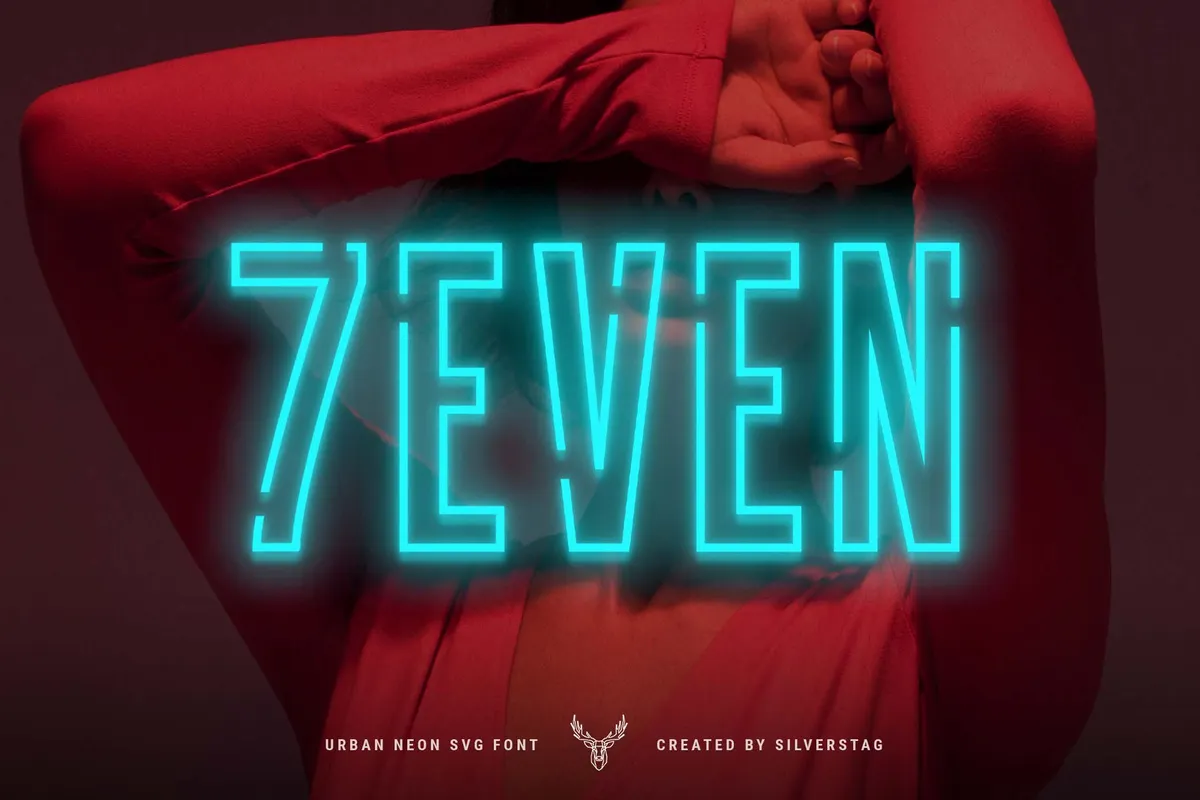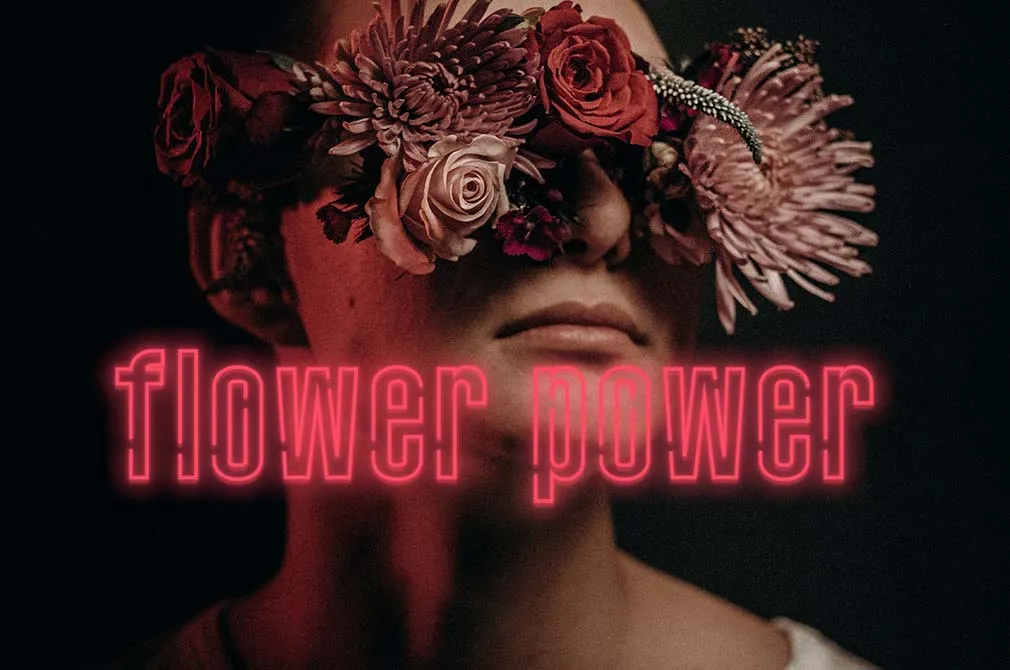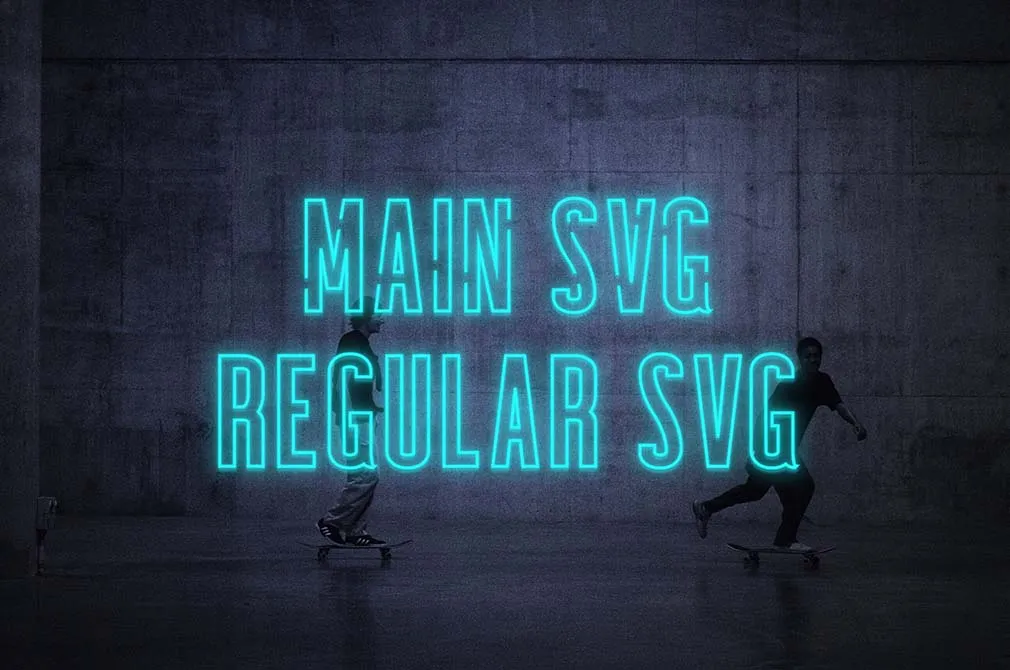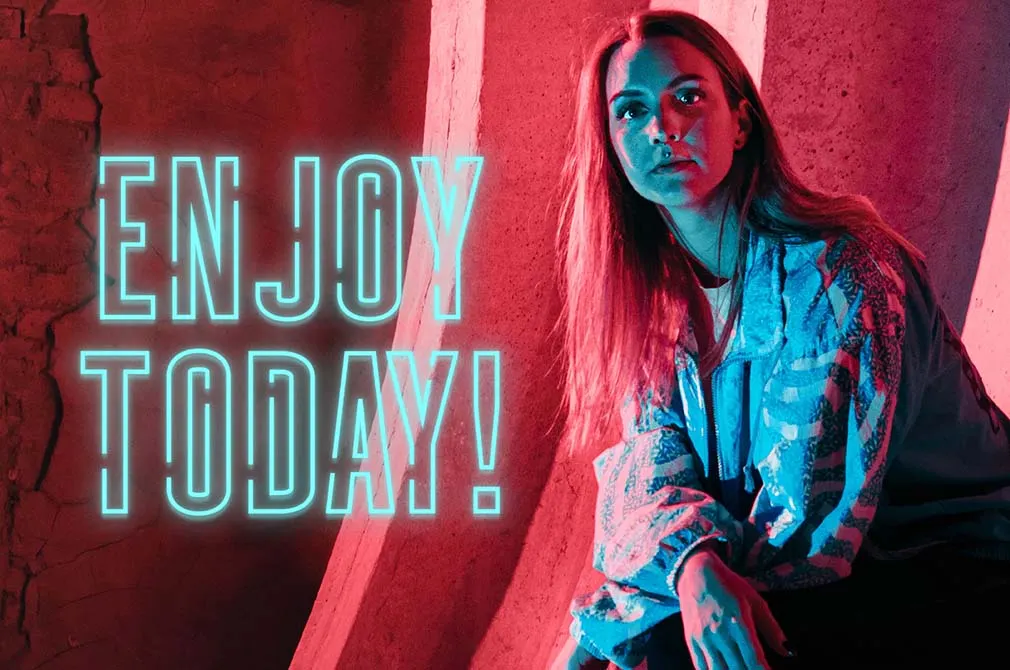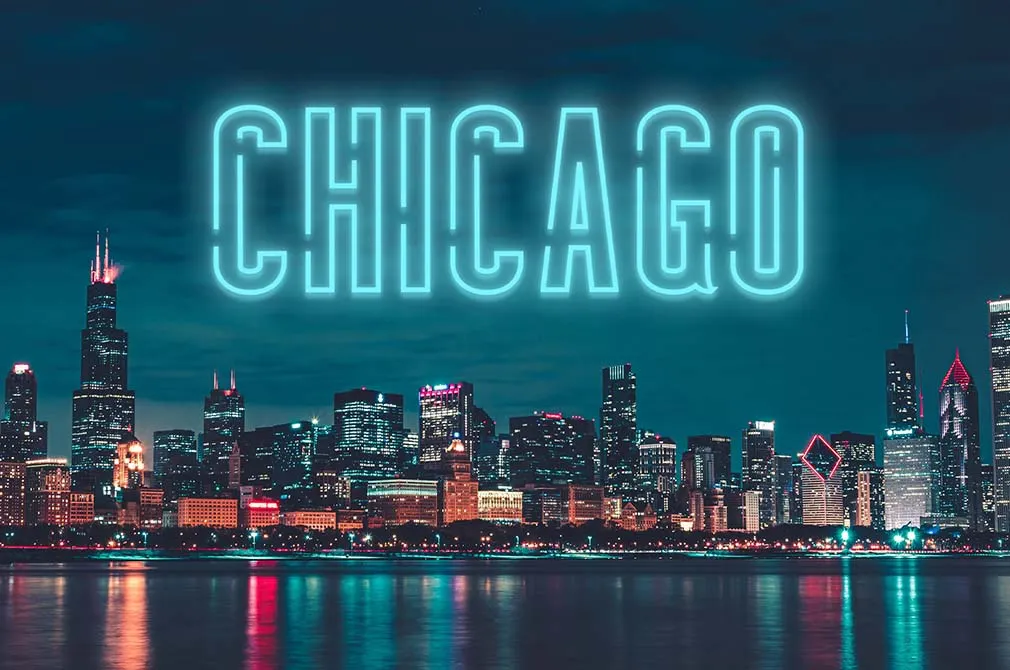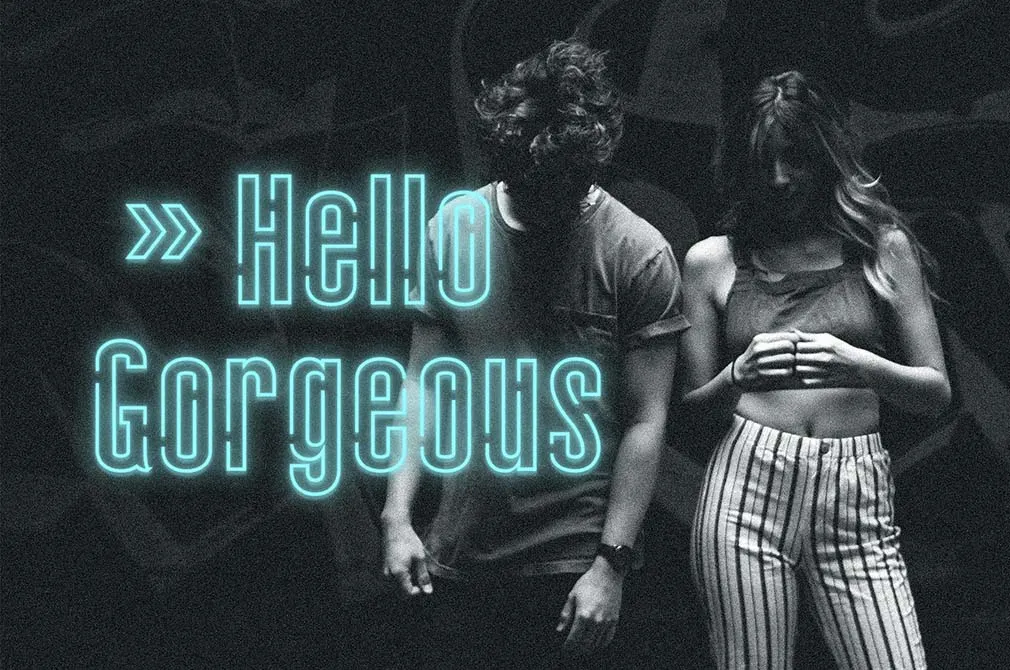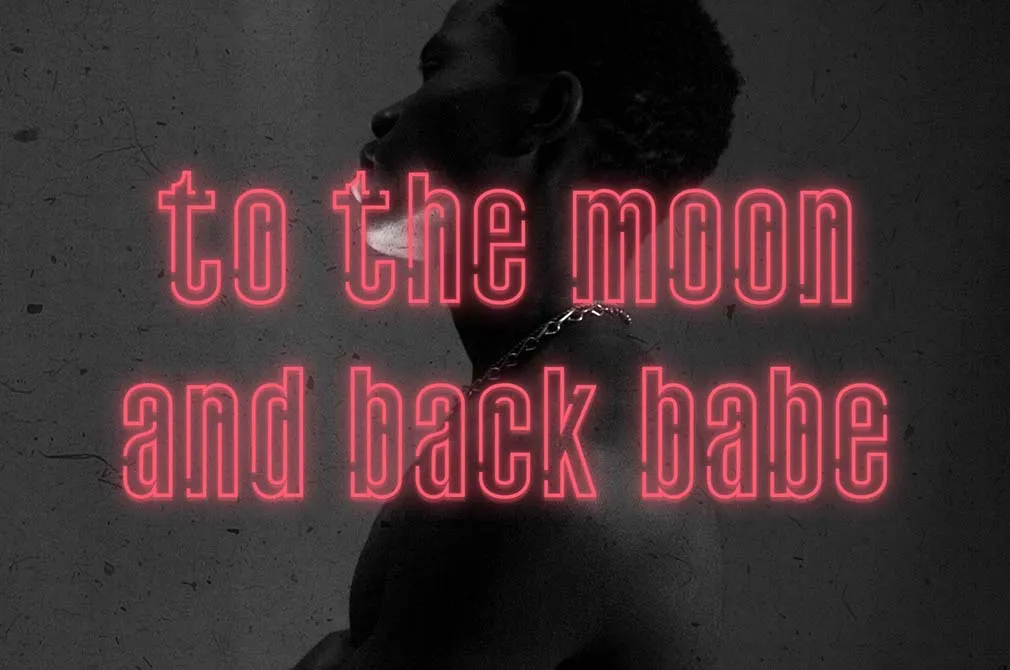
7EVEN Neon Font Pack
Let these typefaces bring you the atmosphere of the long-awaited Friday evening! Neon signs glowing in the dark telling you it’s time to have some rest — that’s the vibe the fonts radiate.It’s quite obvious that the inspiration for this font pack was neon lights, and the task of recreating them was completed perfectly. The soft yet bright glow these types emit is hard to resist but why would you? Grab the pack and start creating! The set includes 5 fonts**(solid,** outlined and outlined cut) that will add luminosity to your designs. There are 2 SVG types: one with regular outlines and another with cut lines, so you can experiment with them.